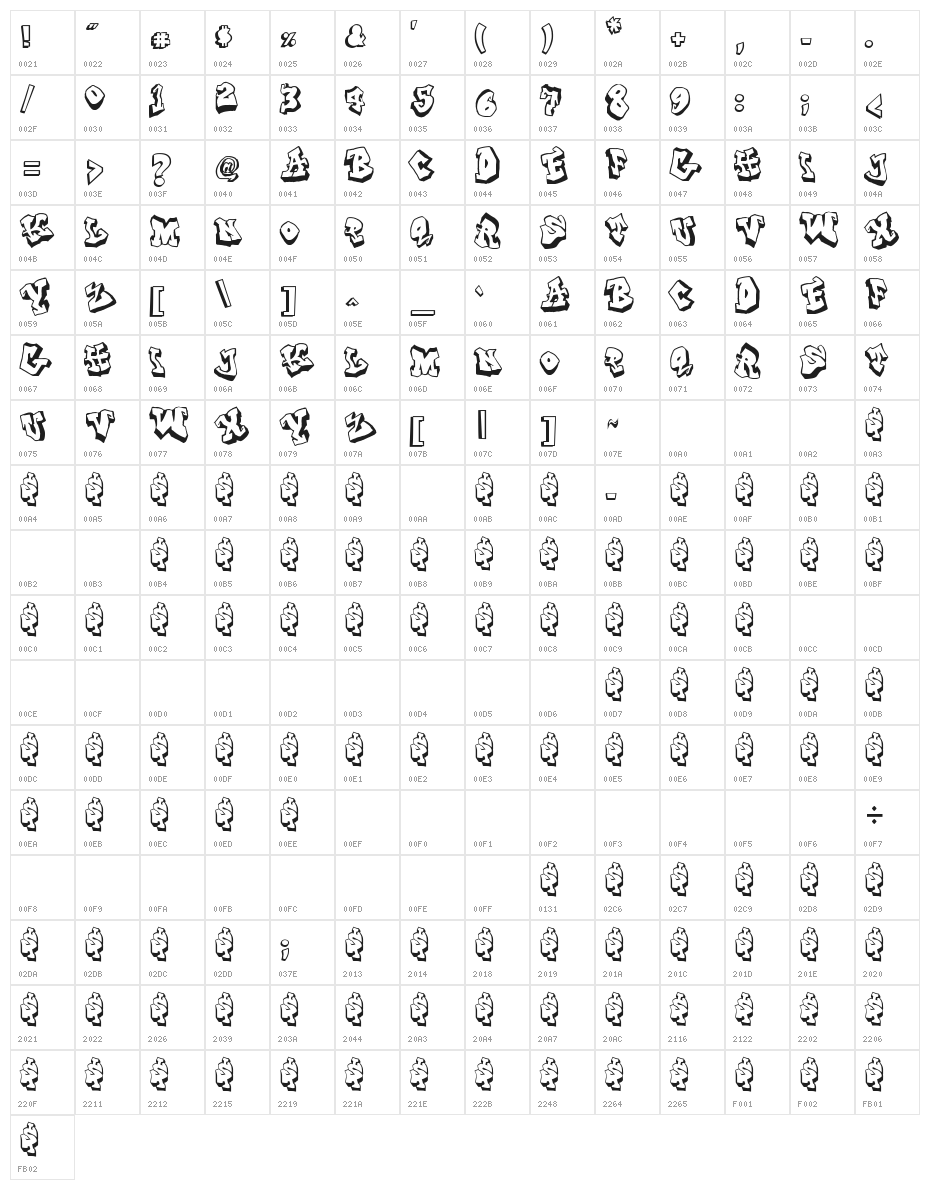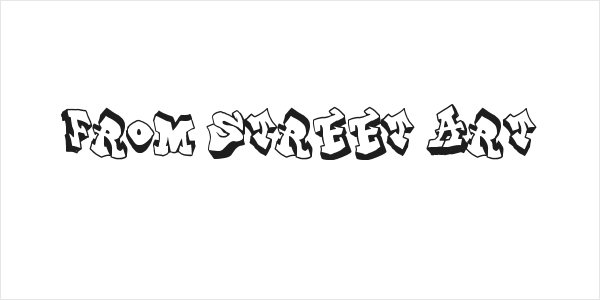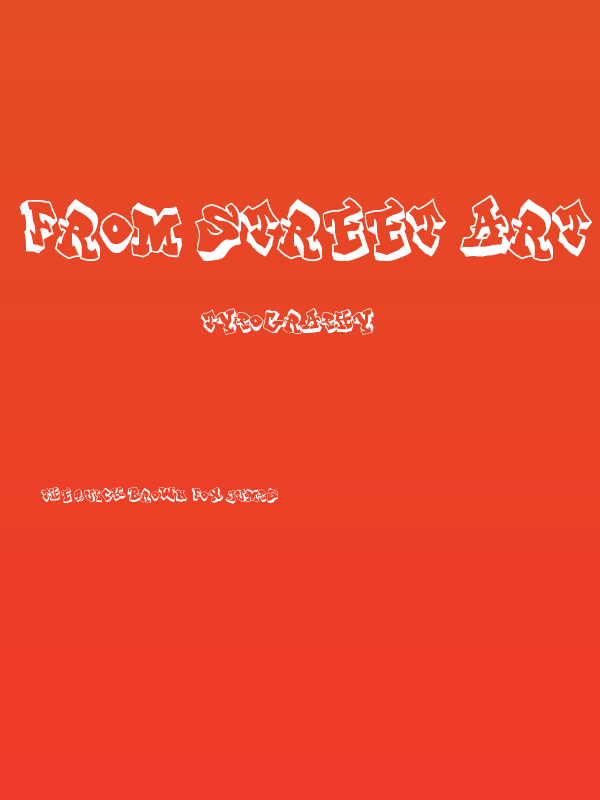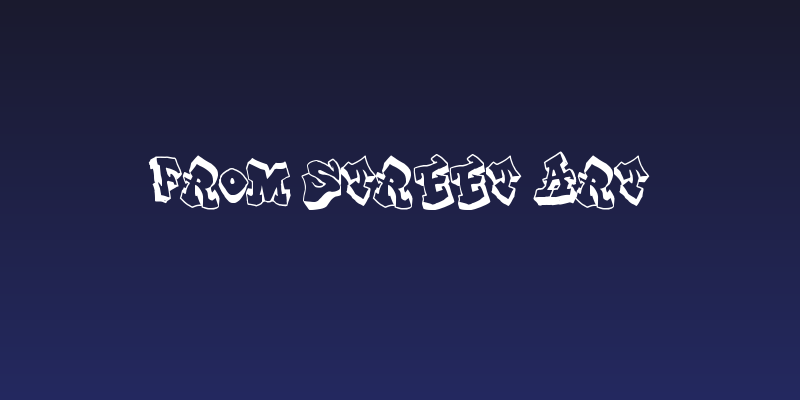
From Street Art Font
From Street Art Description
This font embodies the vibrant and dynamic essence of street art, featuring bold, graffiti-inspired letterforms with a three-dimensional effect. The characters are outlined with a thick black stroke, giving them a strong presence and making them stand out against any background. The playful and rebellious nature of the font is evident in its irregular shapes and angles, reminiscent of urban graffiti styles. Each letter is uniquely crafted, adding to the overall artistic and edgy feel. The font includes a full set of uppercase and lowercase letters, numbers, and a variety of special characters, making it versatile for creative projects.
| Overall Style | Urban, Artistic, Edgy |
| Use Case | Logos, Posters, Merchandise, Album Covers |
| Proposed Projects | Ideal for urban-themed designs, streetwear branding, music album covers, event posters, and any project seeking a bold, artistic touch. |